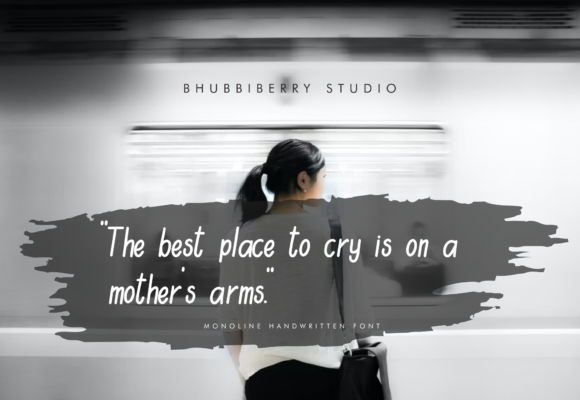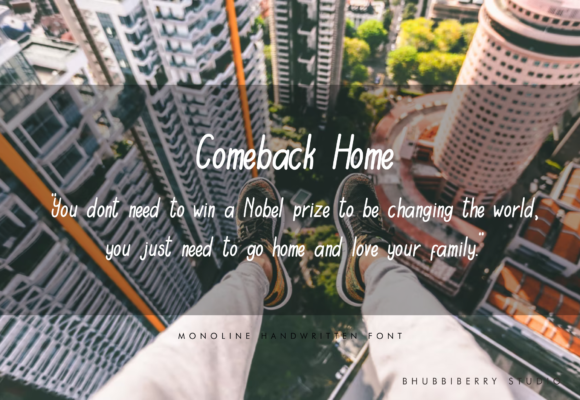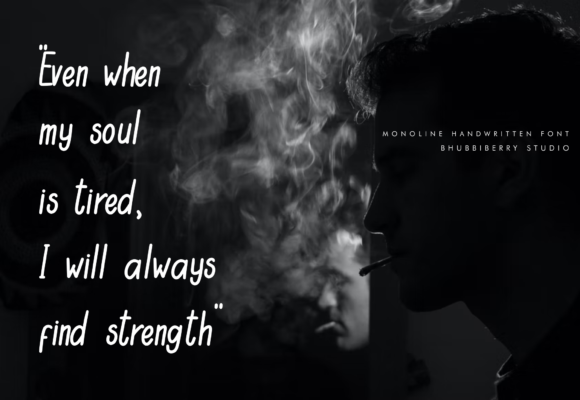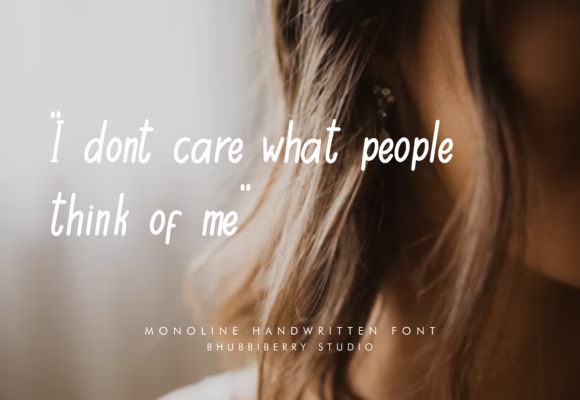
About St. Dawn Font
Introducing St. Dawn, a clean and simple handwritten font designed to bring a gentle and versatile aesthetic to your projects. This font’s simplicity adds a touch of elegance and adaptability, making it a beautiful choice for a variety of design ideas. St. Dawn promises to infuse your projects with a joyful and charming vibe, enhancing their overall appeal.
The clean lines and straightforward design of St. Dawn make it a delightful font for a range of applications. Whether you’re working on invitations, branding materials, or any project that requires a subtle yet impactful touch, this font is crafted to bring a sense of simplicity and beauty.
Imagine St. Dawn as a gentle companion to your creative endeavors, effortlessly adding a joyful and adaptable essence. Its clean and simple handwritten style makes it a versatile choice that complements various design contexts, allowing it to seamlessly integrate into your projects.
In summary, St. Dawn is more than just a font; it’s a clean and simple handwritten tool crafted to bring a joyful and adaptable touch to your designs. Let it enhance the elegance of your invitations, branding, and other creative projects, leaving a lasting impression with its subtle charm and versatile appeal.